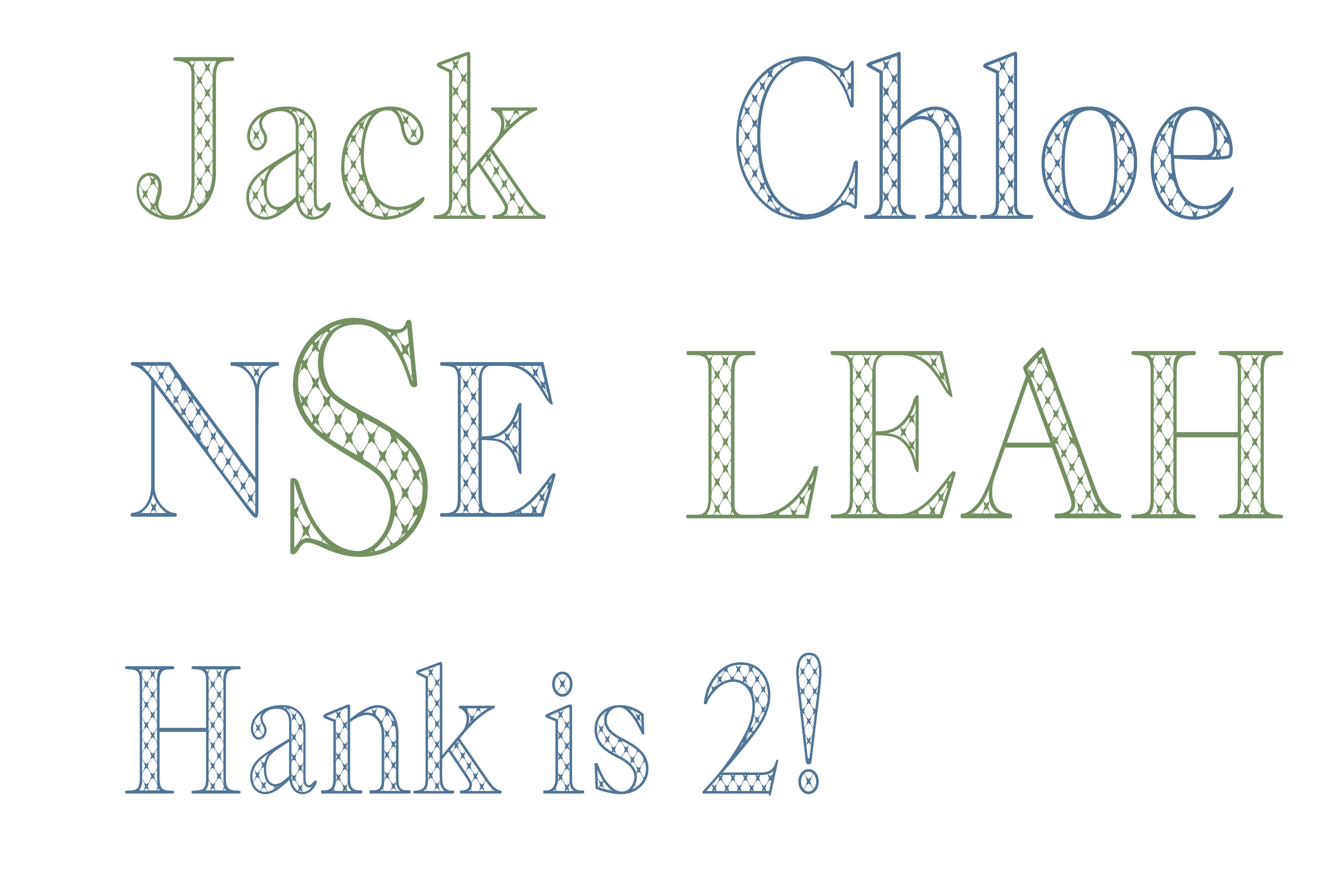
Single Chic Serif Font for Print
Our Single Chic Serif is a collection of 26 uppercase and 26 lowercase letters plus numbers 0-9 and punctuation in our signature Chic pattern.